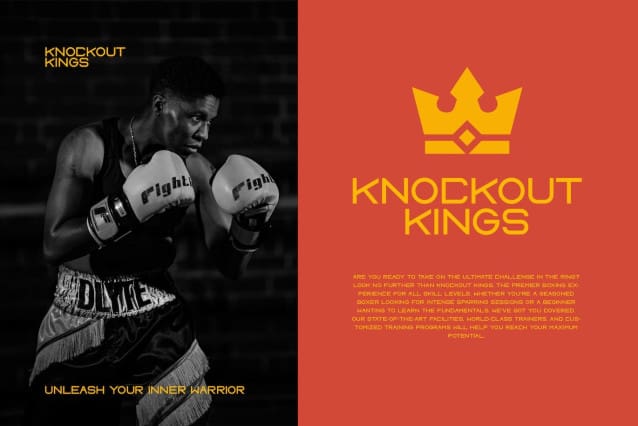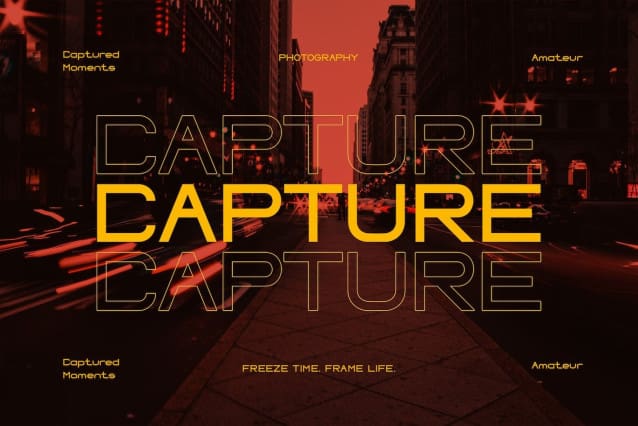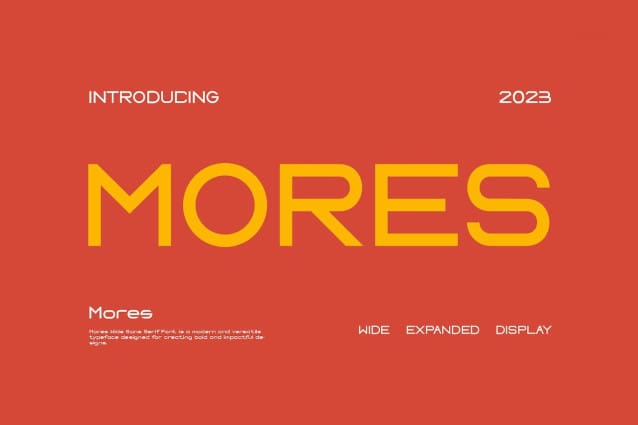
Mores Wide Font
Mores Wide Font a modern sans serif font with an elegant style, perfect for brands, logos, invitations, magazines, product packaging, and more.